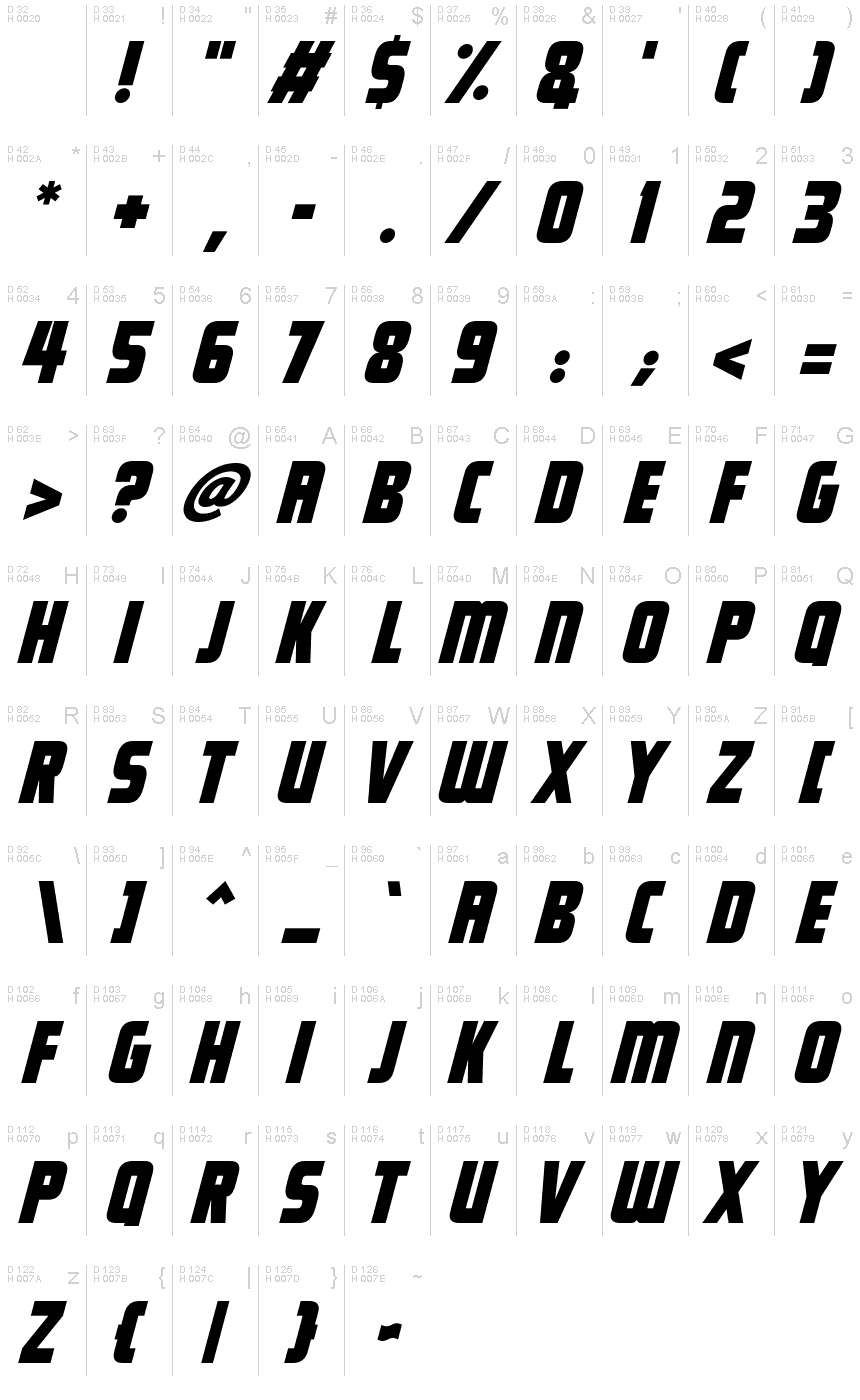
Headliner Italic
Headliner Italic is a bold sans serif font designed by Darrell Flood. Its modern style makes it perfect for creating eye-catching titles and headings, especially in projects targeting a young audience such as fashion magazines, music videos, and modern art exhibitions.